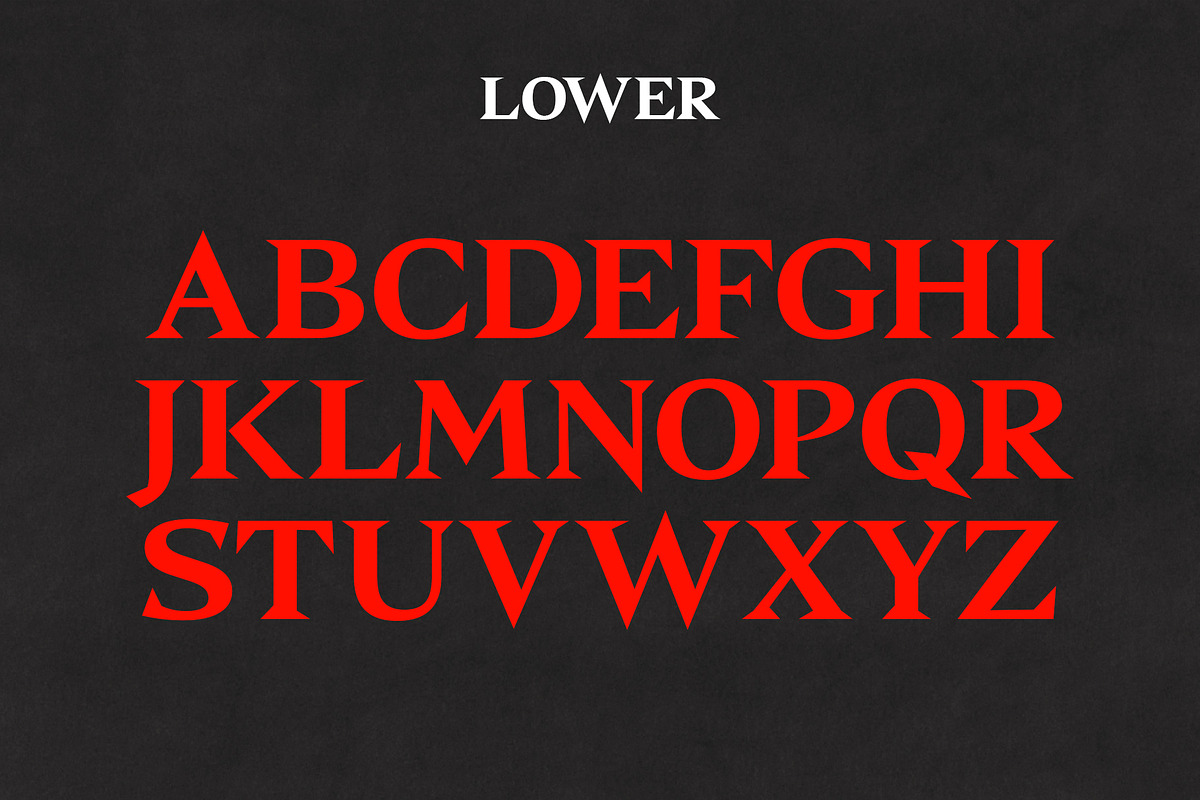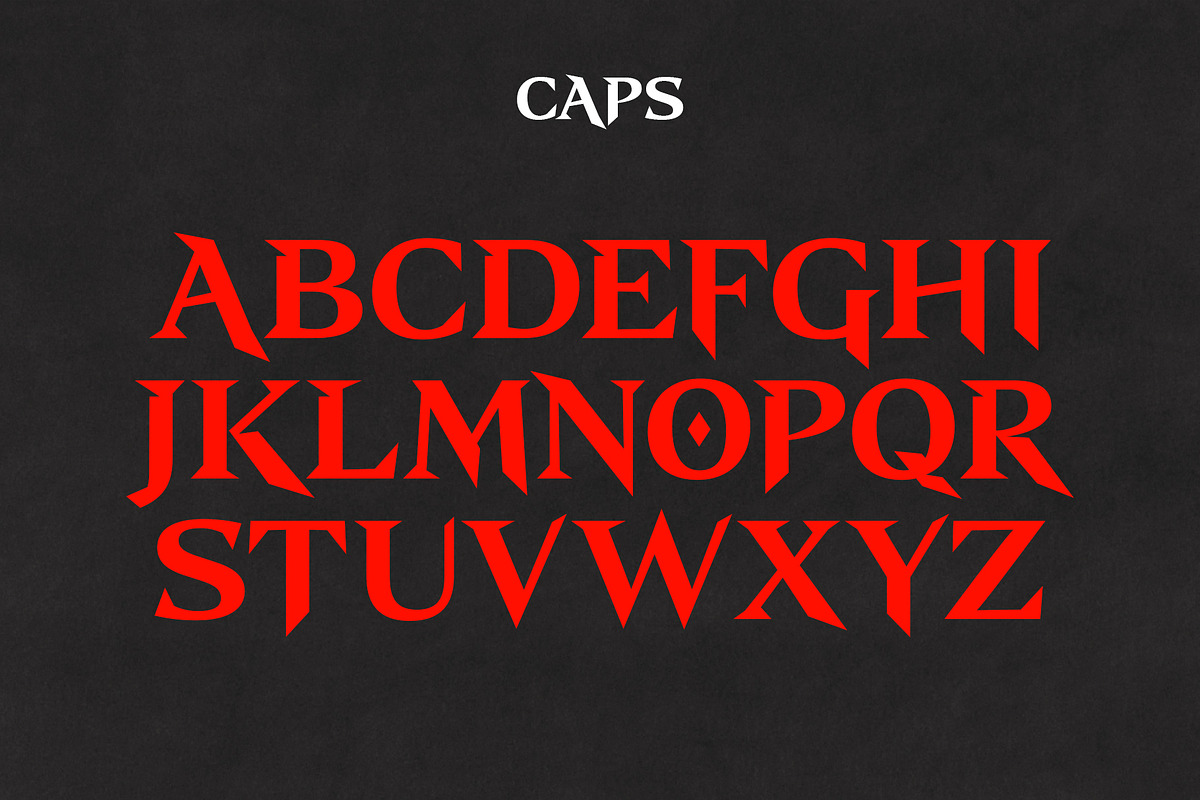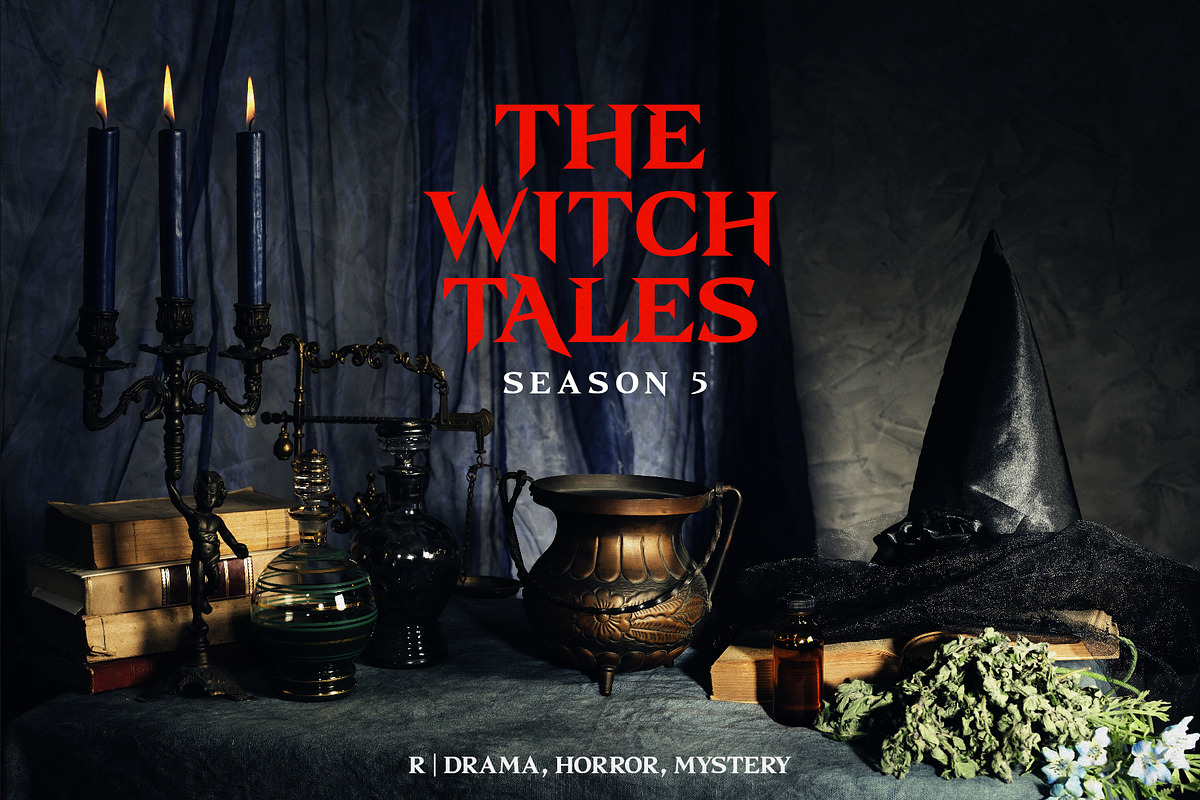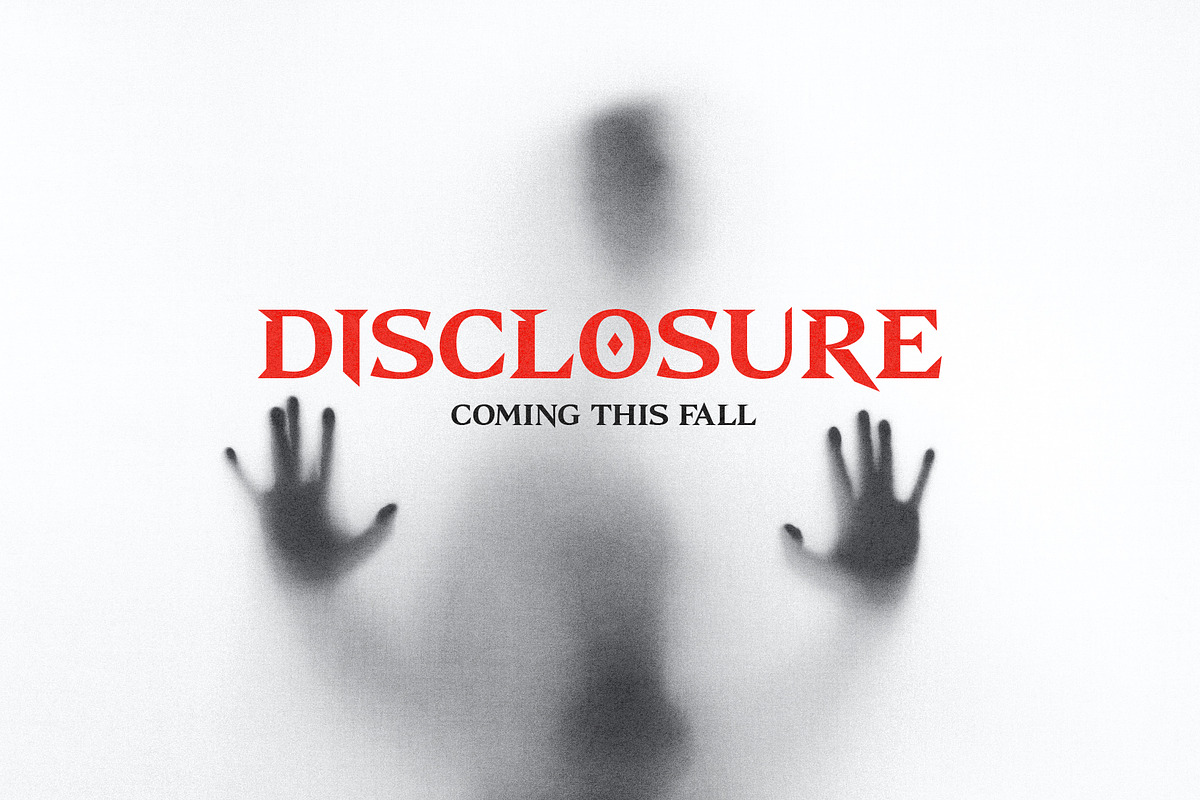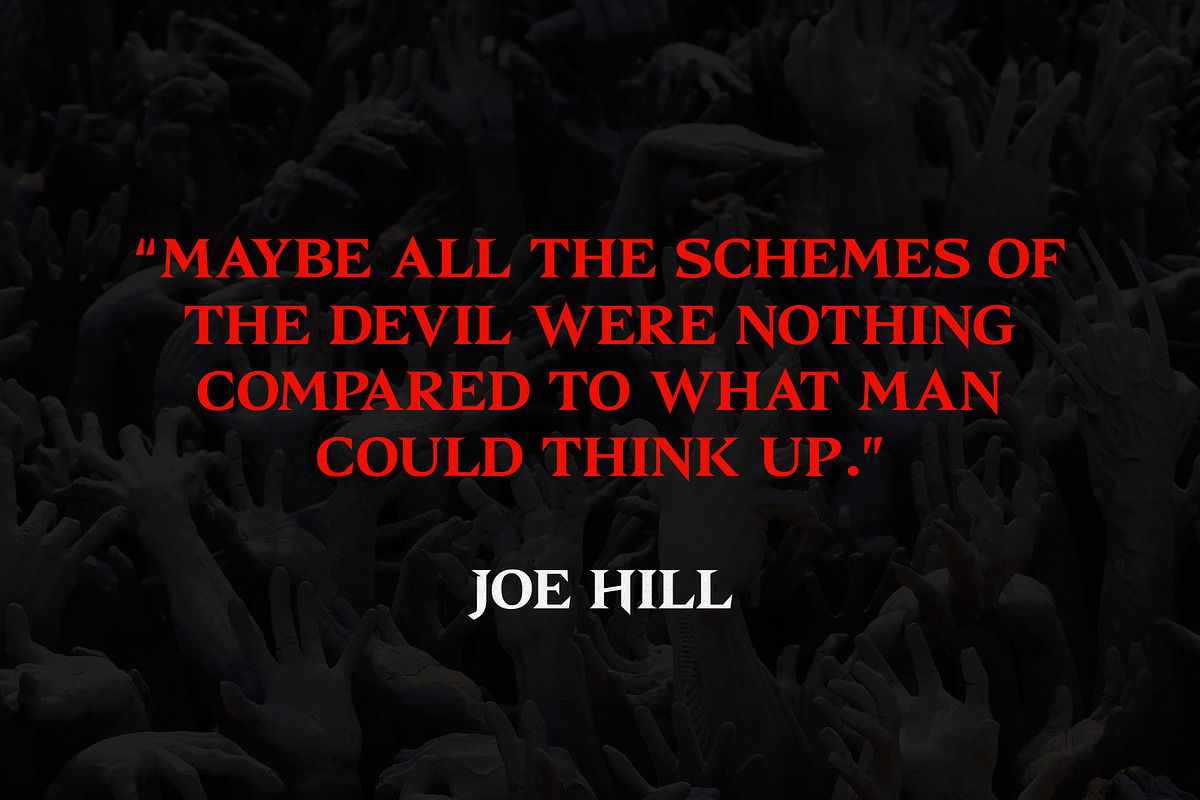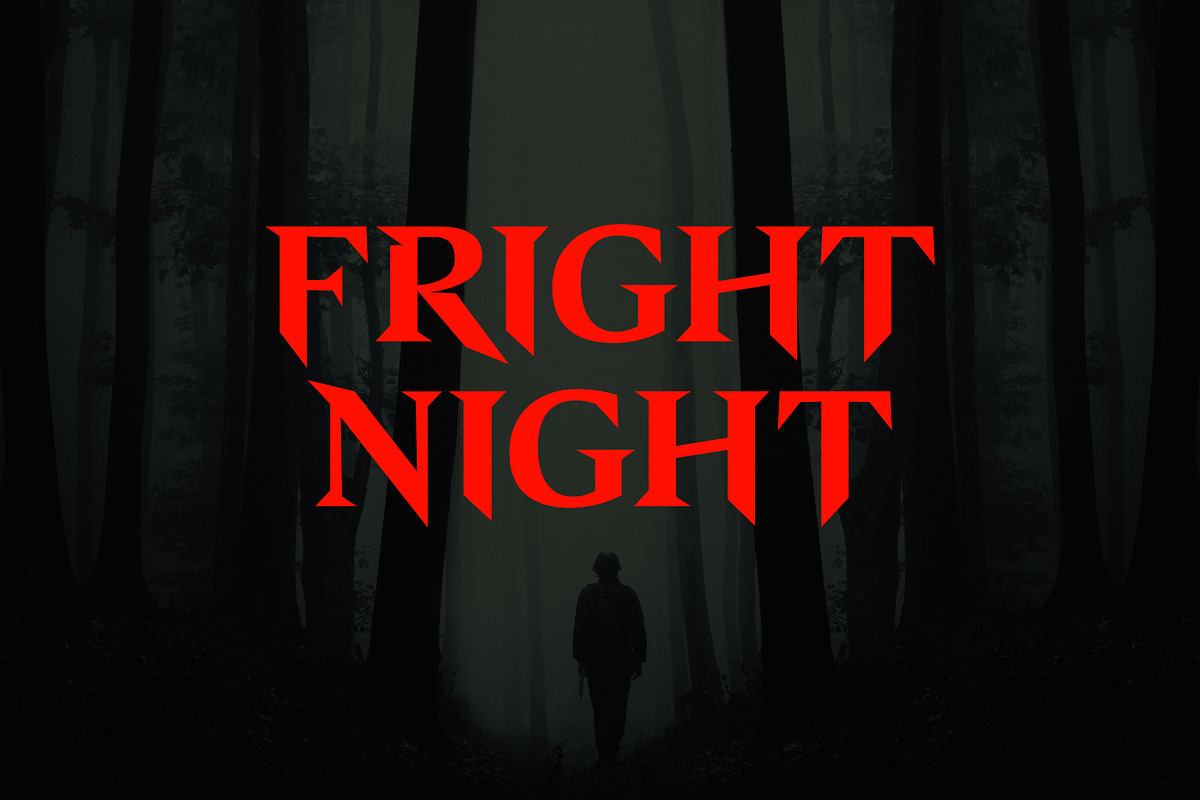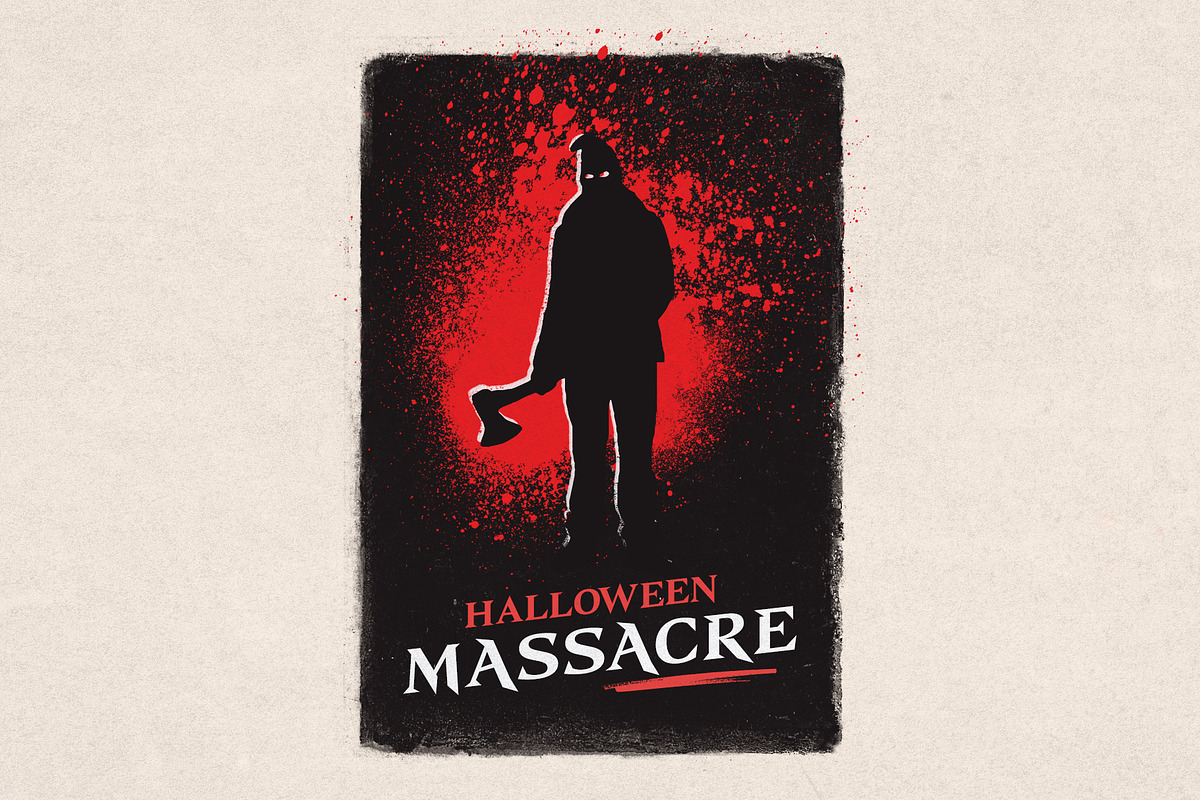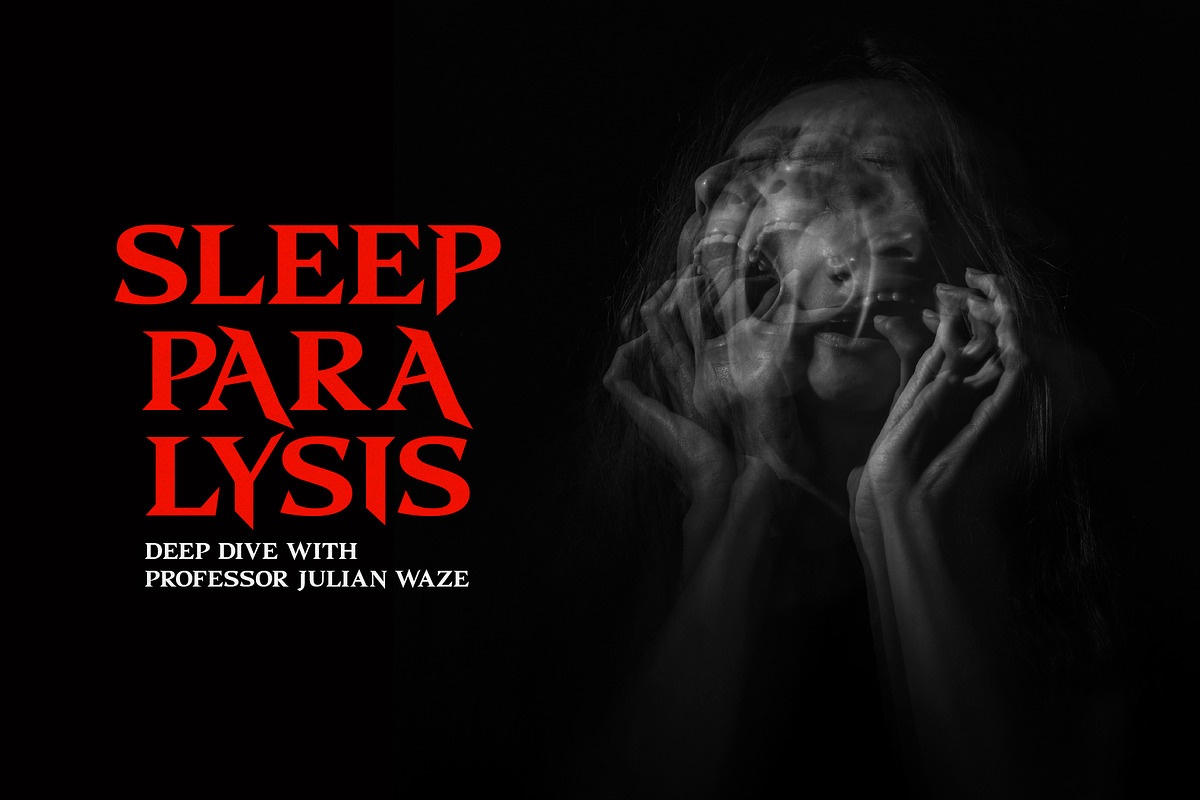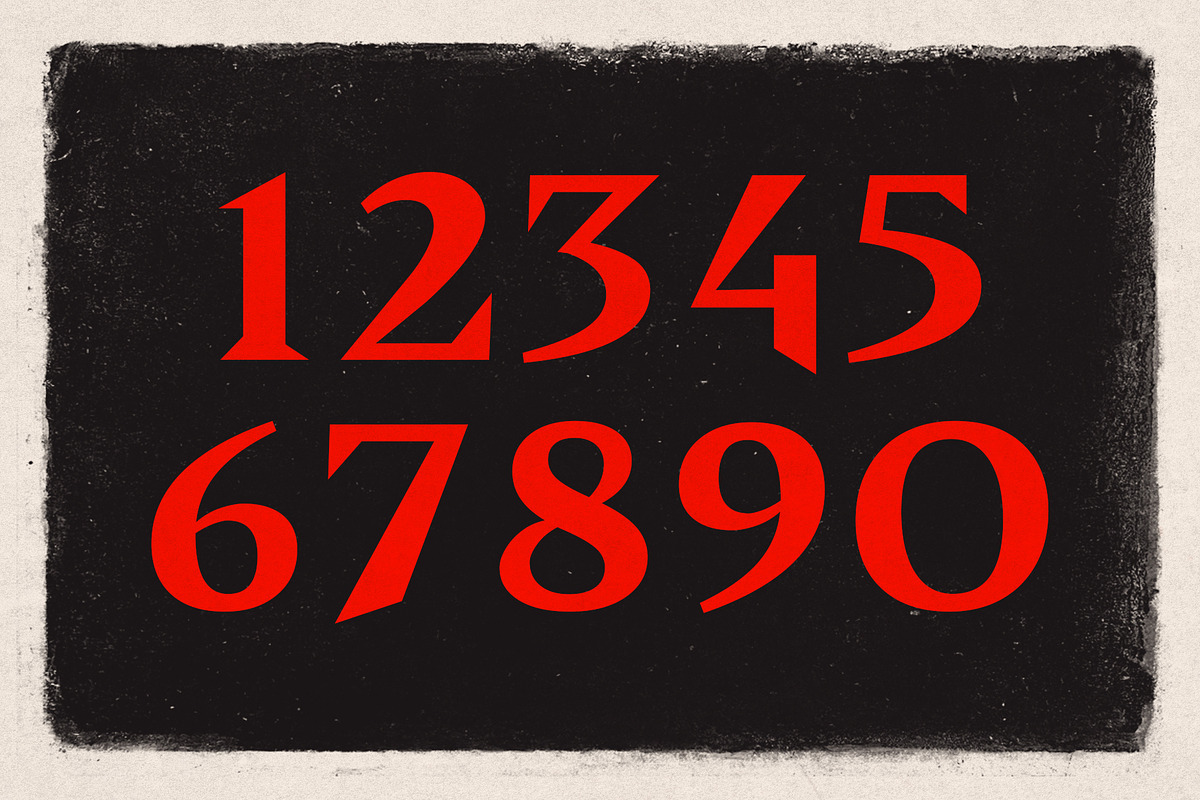
Fright Night - Sharp Horror Font
If you're looking for a typeface that will grab the readers attention and build suspense, this font is for you. Fright Night is an emotional serif typeface with horror vibes. The font is clean, sharp, and unique. Fright Night is suitable for posters, movie titles, billboards, branding, business card, and much more.
Make your design pop up with this clean serif typeface today!